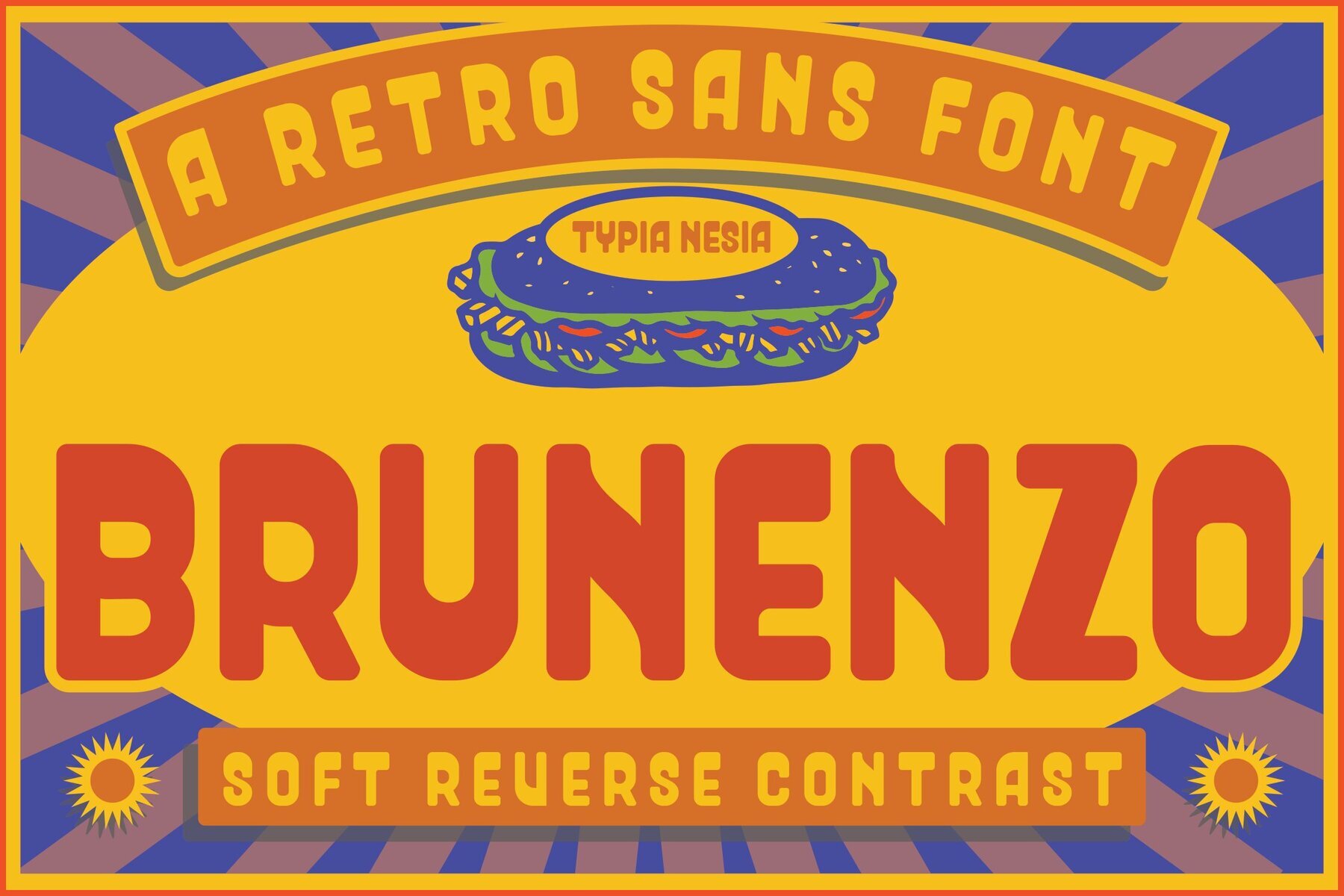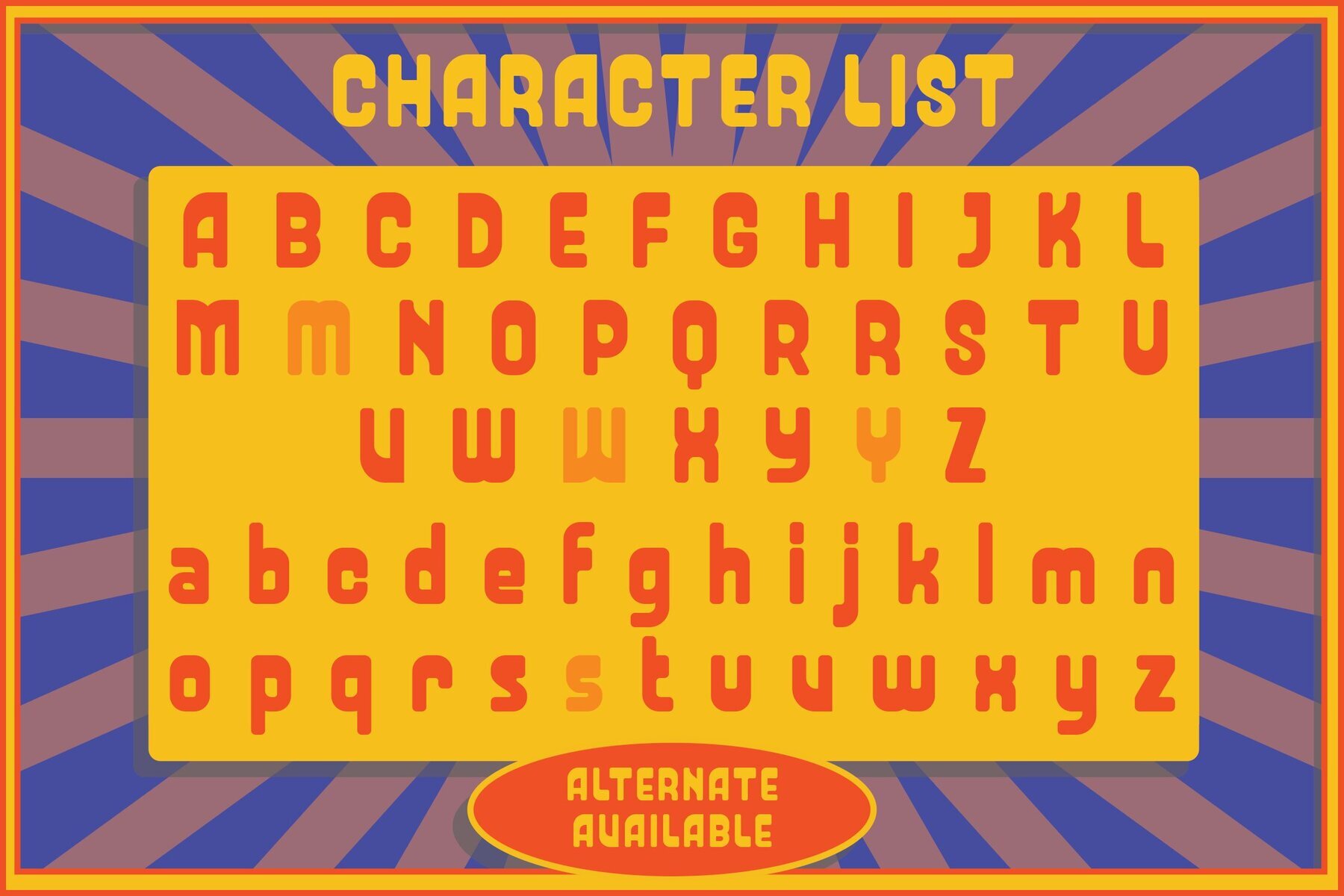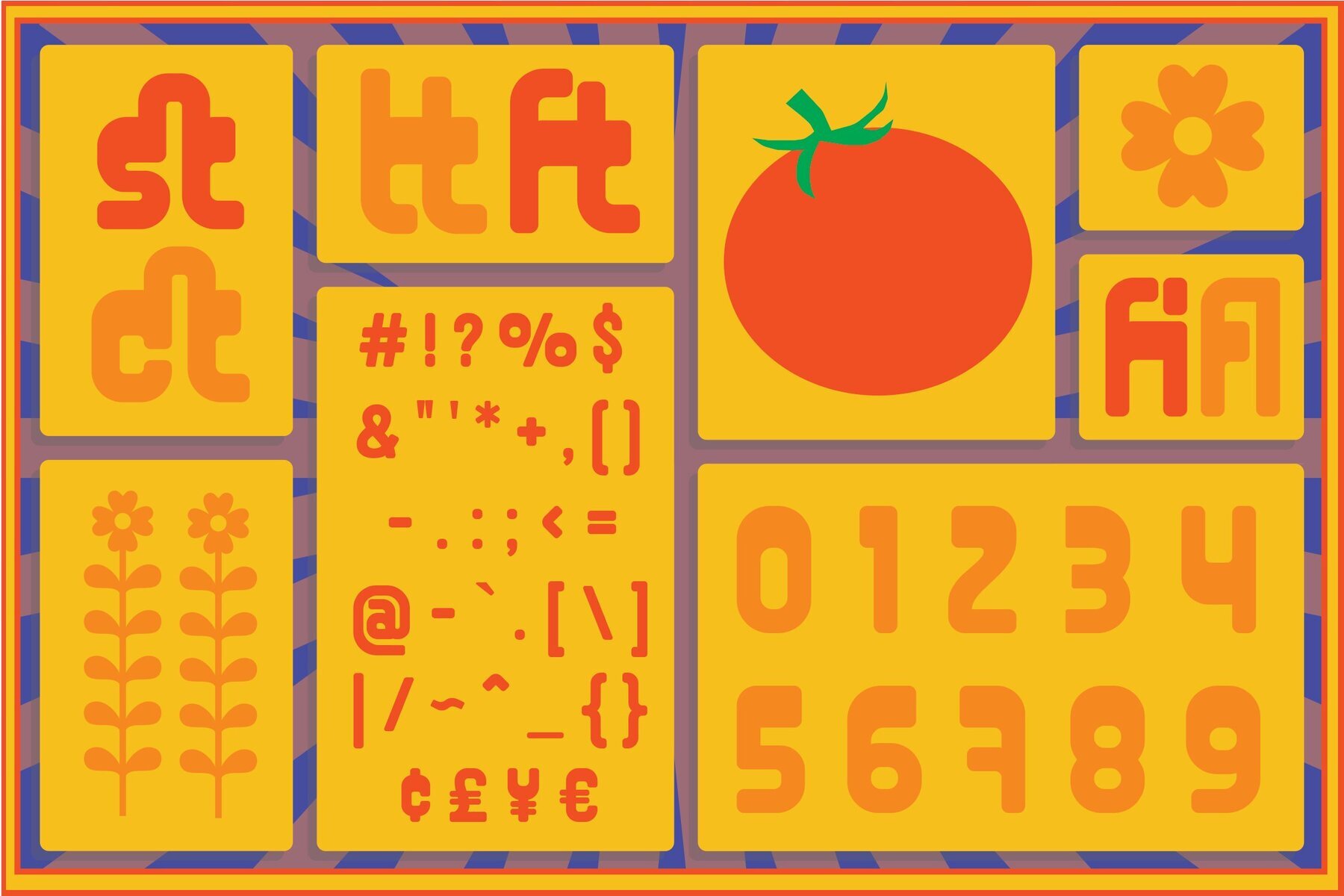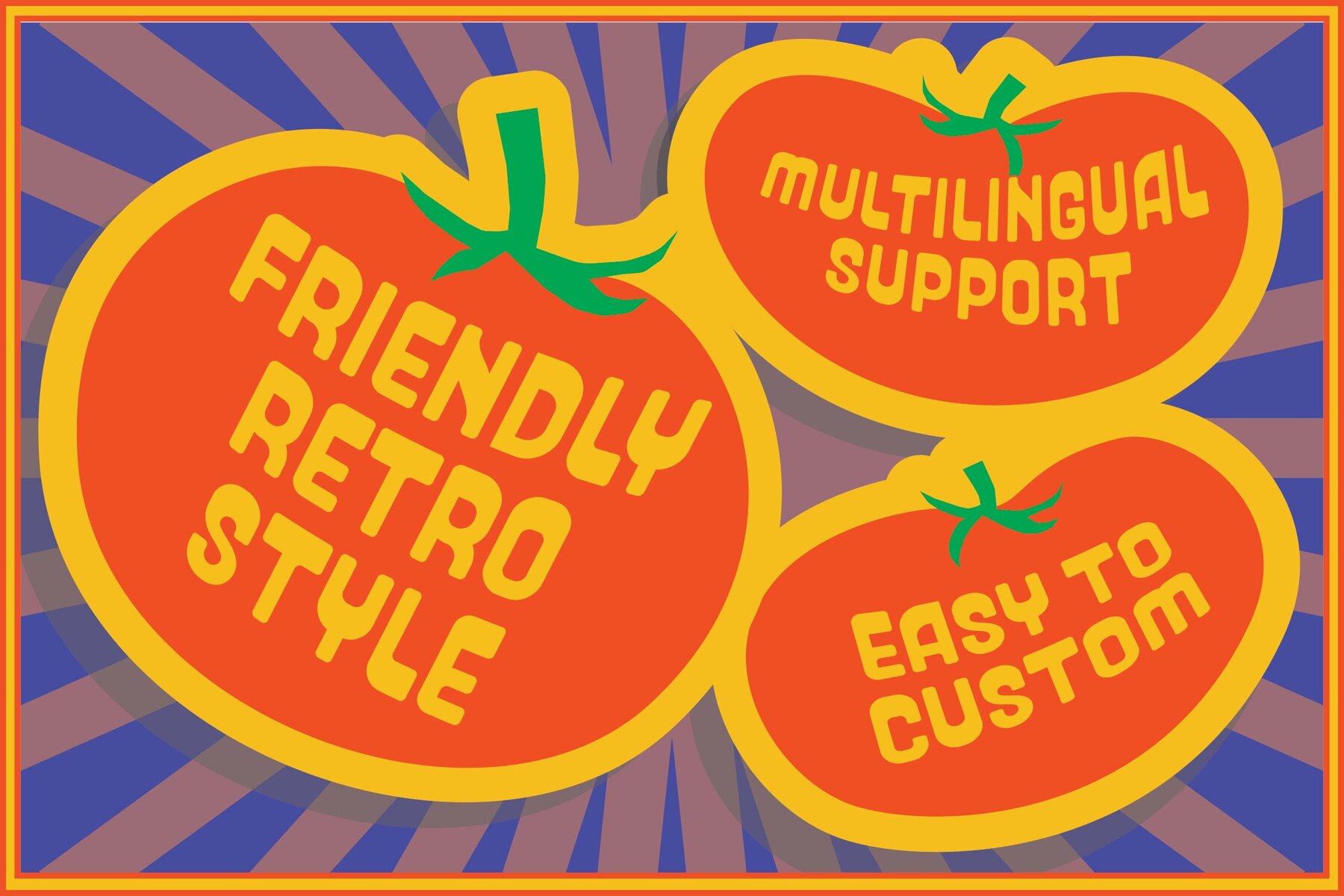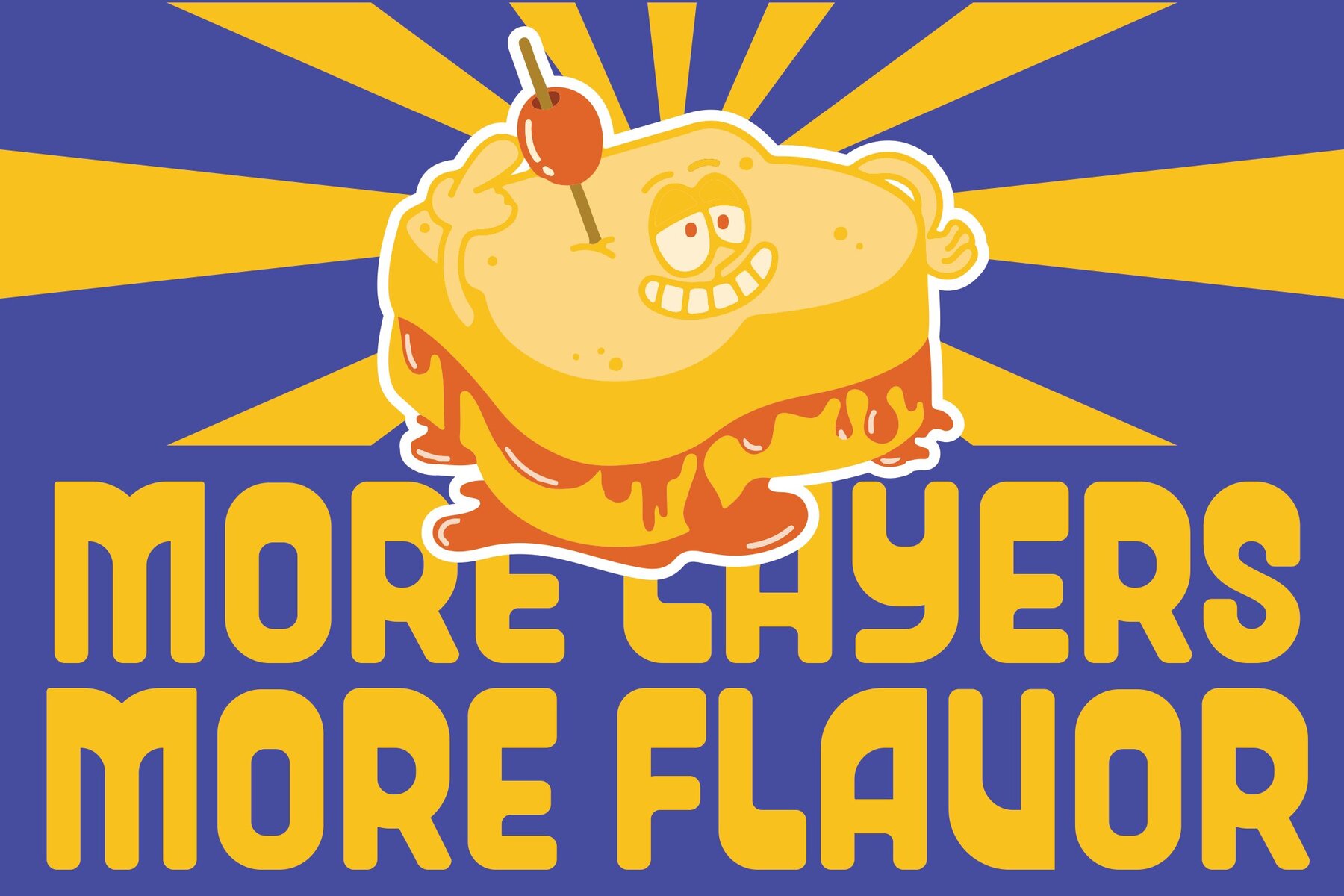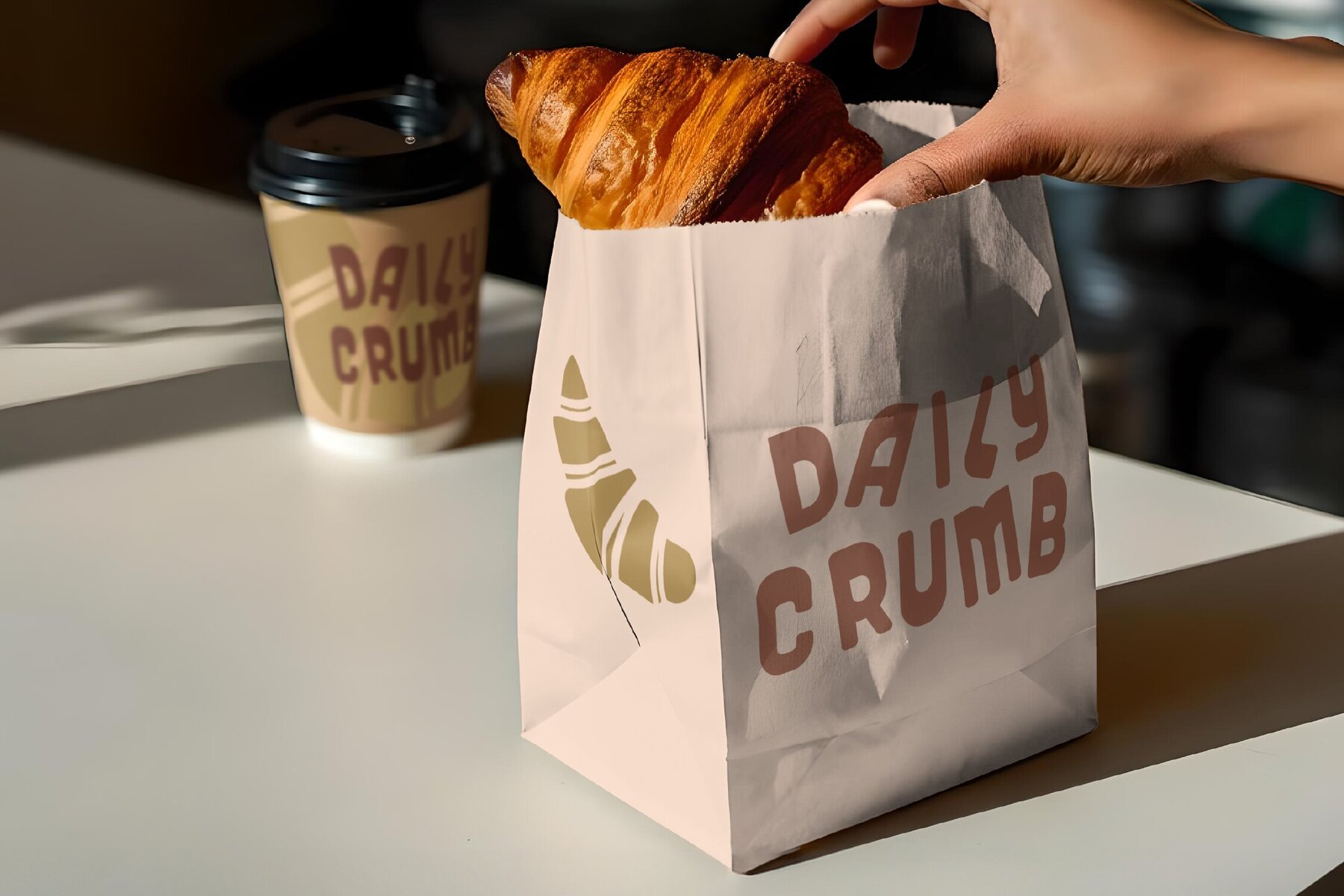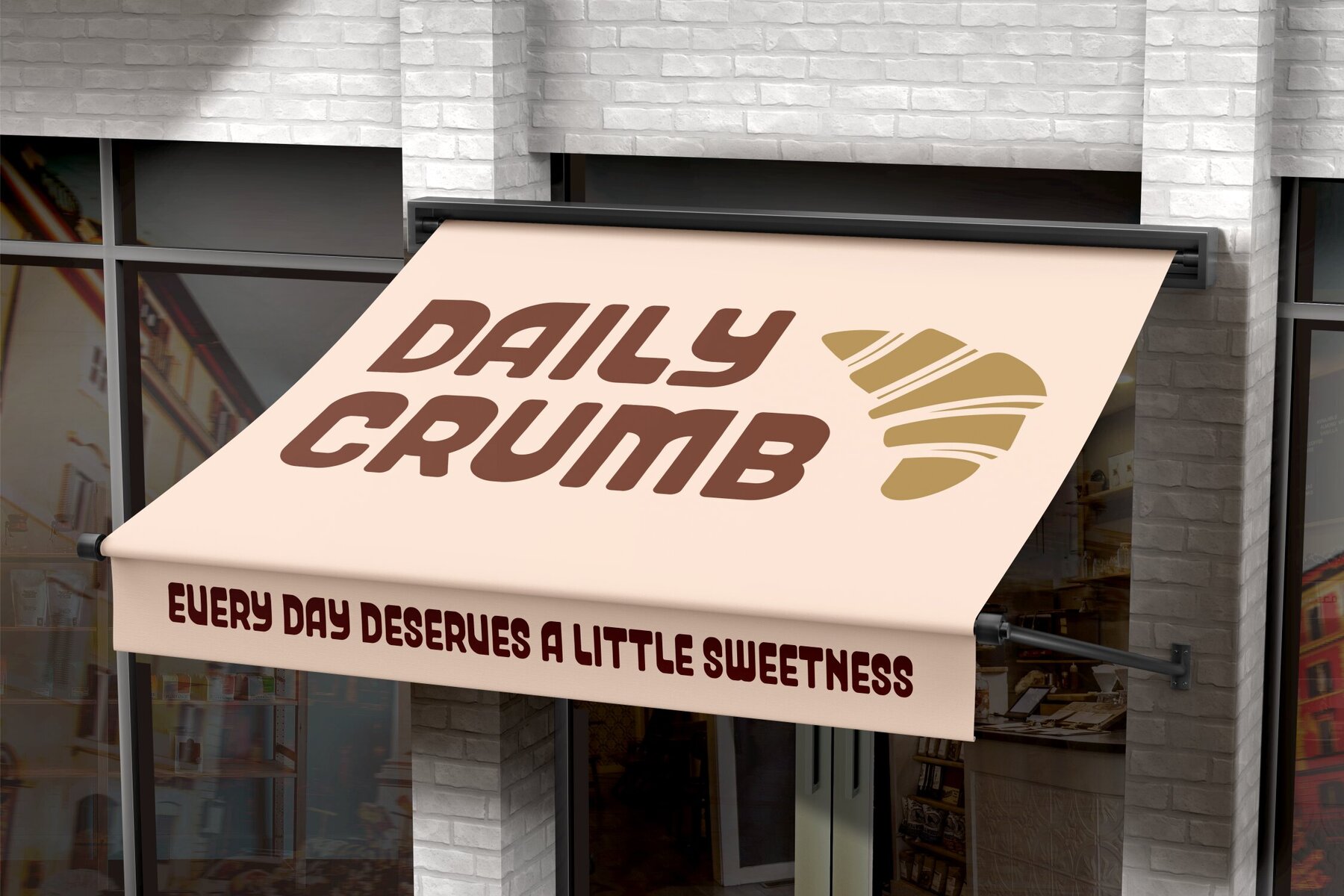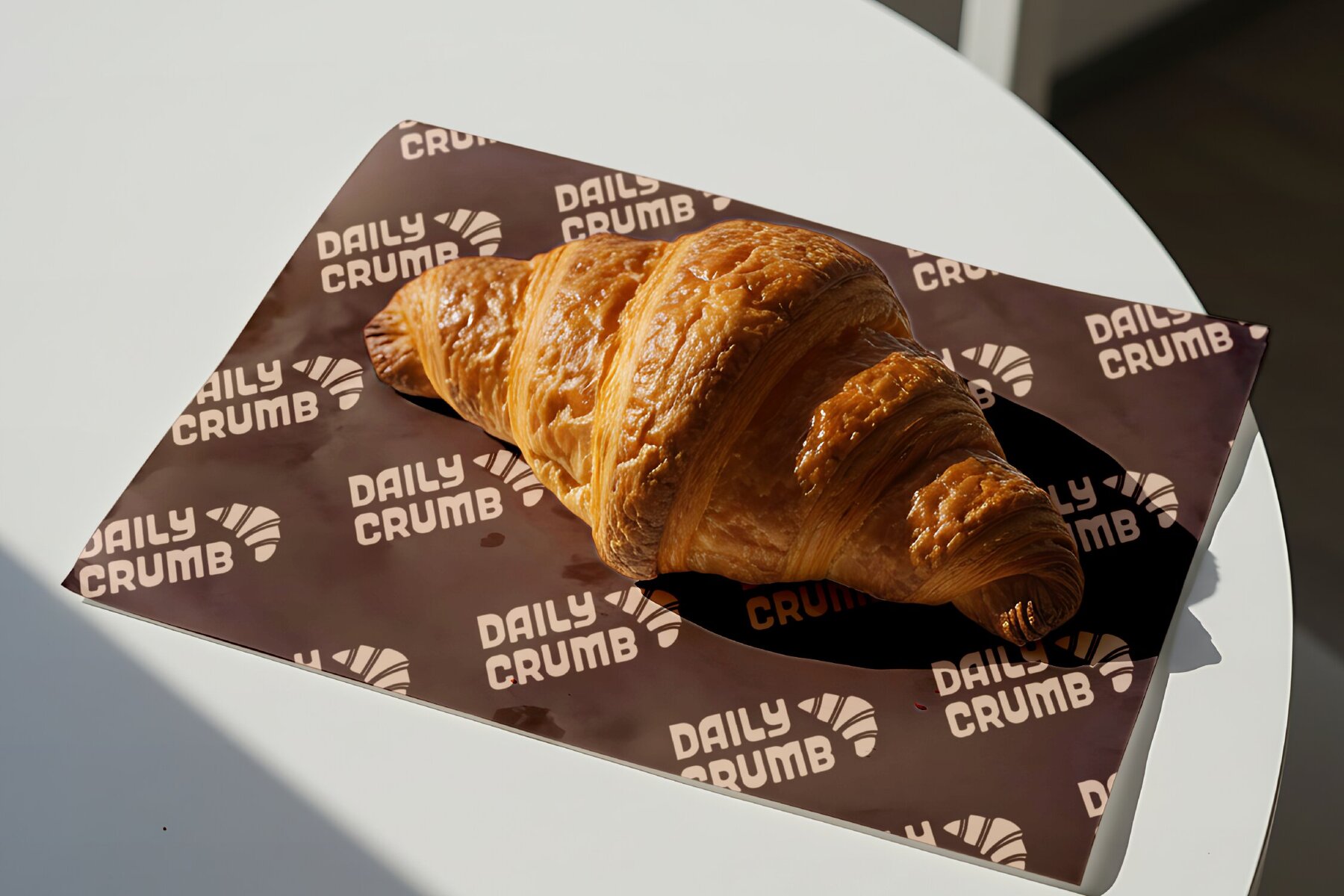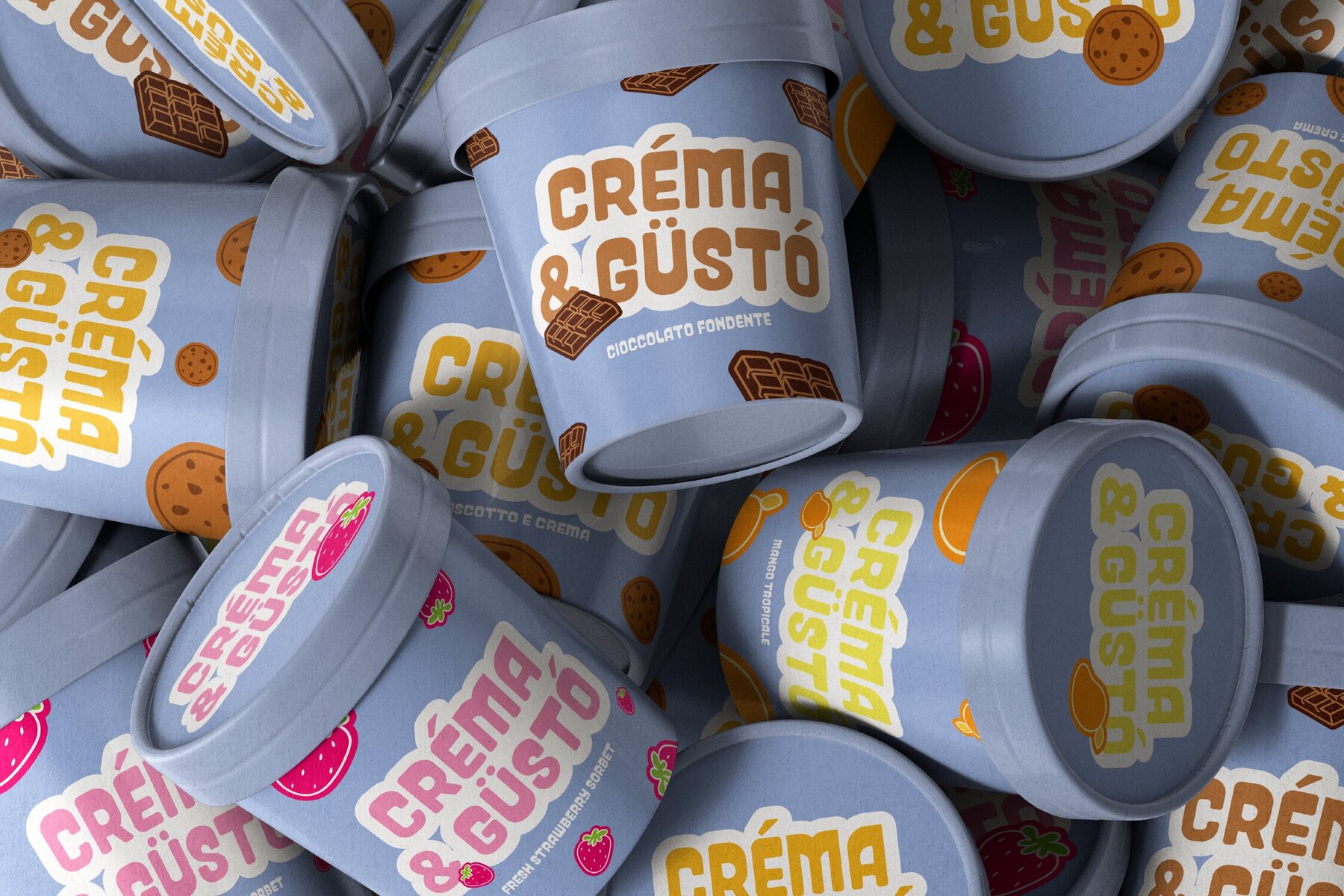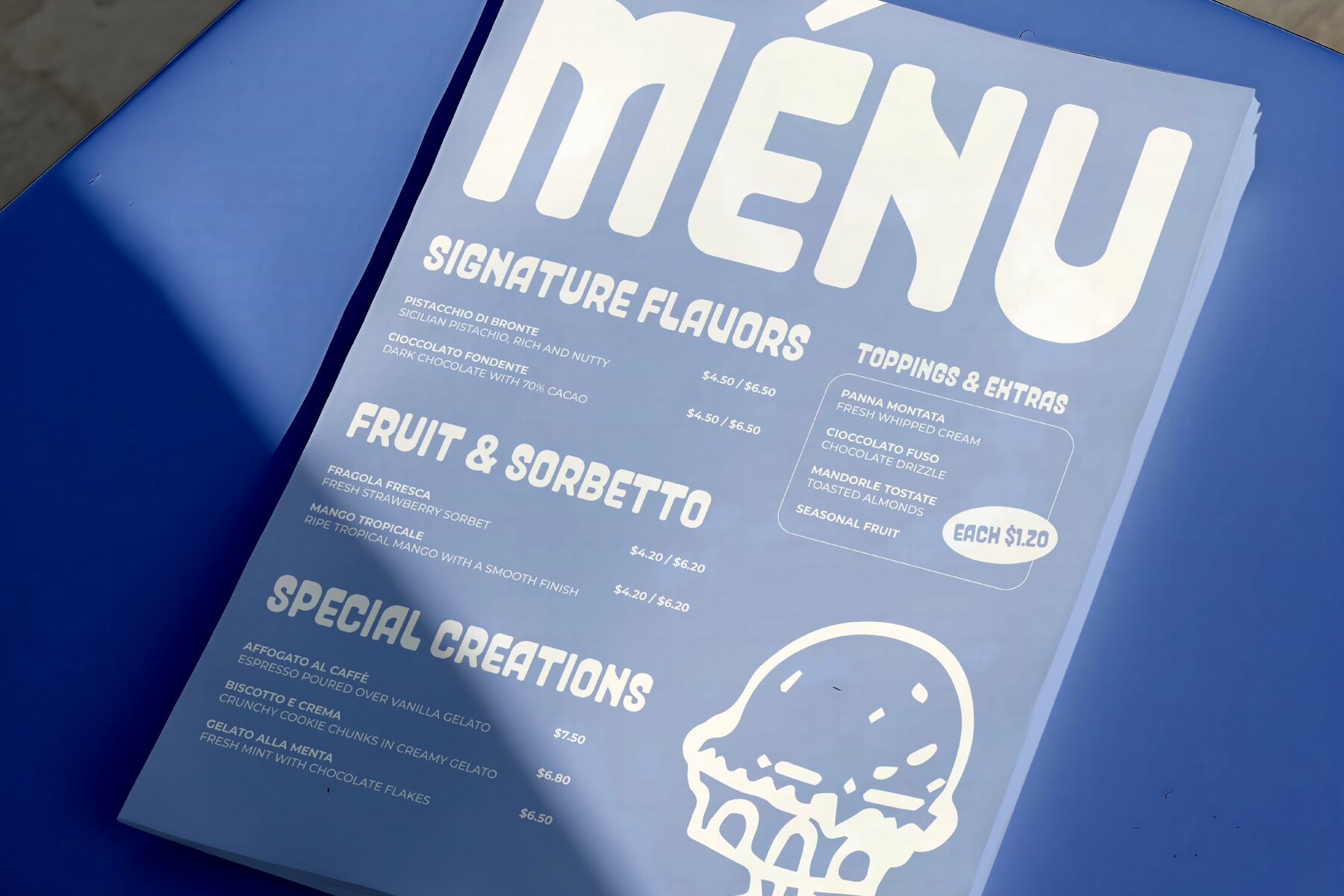
Brunenzo Font
Brunenzo Regular
Brunenzo stands out with its distinctive nod to the groovy style of the 1970s, encapsulated in a classic retro condensed rounded sans form. Its playful and bold reverse contrast creates a striking visual appeal, making it an excellent choice for projects that crave attention. This font is particularly suited to branding elements, packaging, and poster design, especially in industries such as food, gaming, cafes, and bakeries, where a blend of vintage charm and modern flavor is beneficial. Brunenzo shines with its comprehensive character set, featuring ligatures and alternates that enhance its adaptability for various applications like headlines and titles. With its tall, condensed letterforms, this typeface transforms any text into a captivating statement, ensuring your message doesn't just get read—it gets remembered.Brunenzo: Retro Sans with a Modern Twist